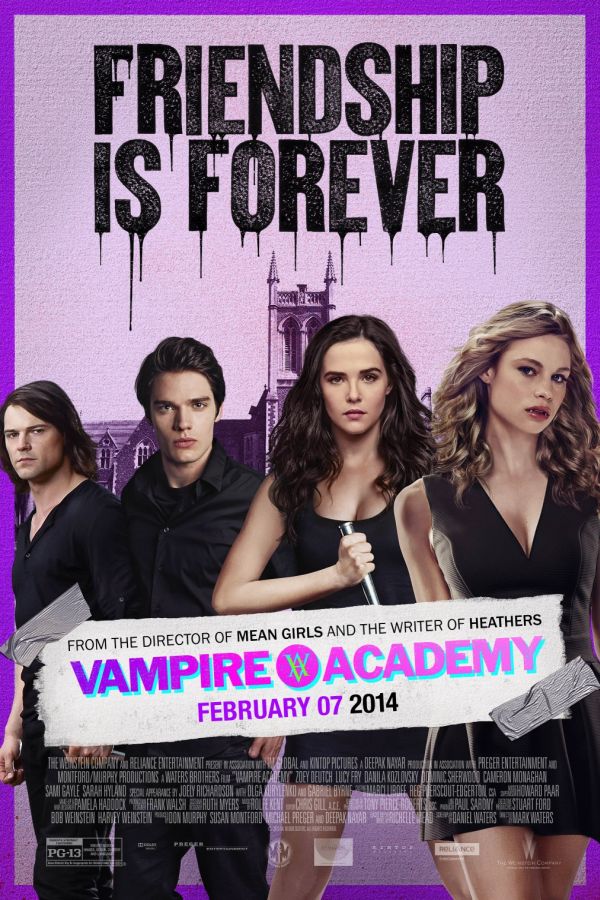
Vampire Academy Font
FantasyVampire Academy is a young adult fantasy series written by Richelle Mead, following the story of Dhampir guardian Rose Hathaway and her Moroi vampire best friend Lissa Dragomir as they navigate their way through a dangerous world of supernatural politics, romance, and betrayal.
The movie title "Vampire Academy" on the poster features a font similar to Franklin Gothic Roman by Morris Fuller Benton, created in 1902, while the tagline "Friendship Is Forever" was possibly crafted using Knockout No. 69 Full Lightweight, a sans serif by Hoefler & Frere-Jones.